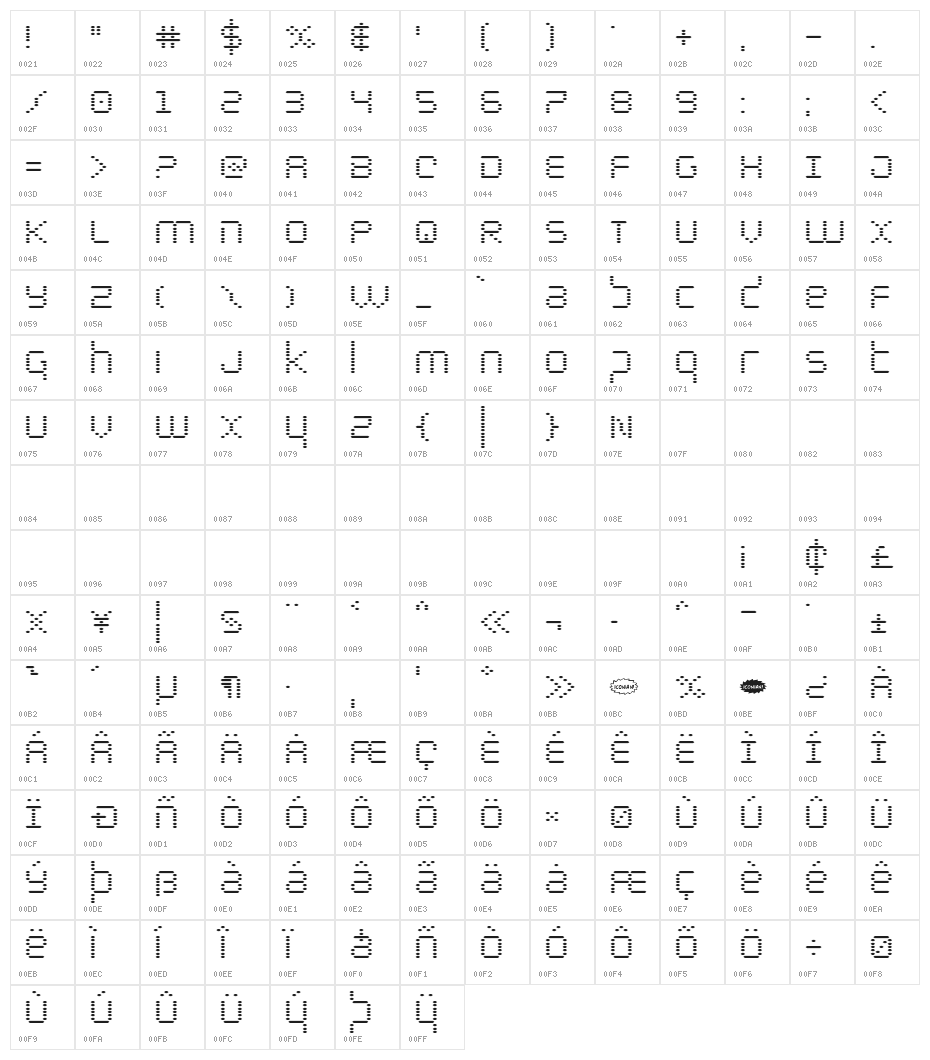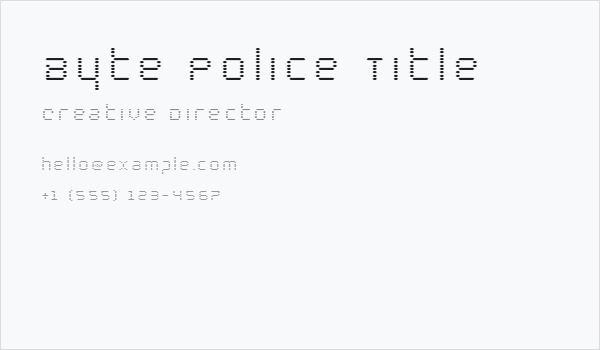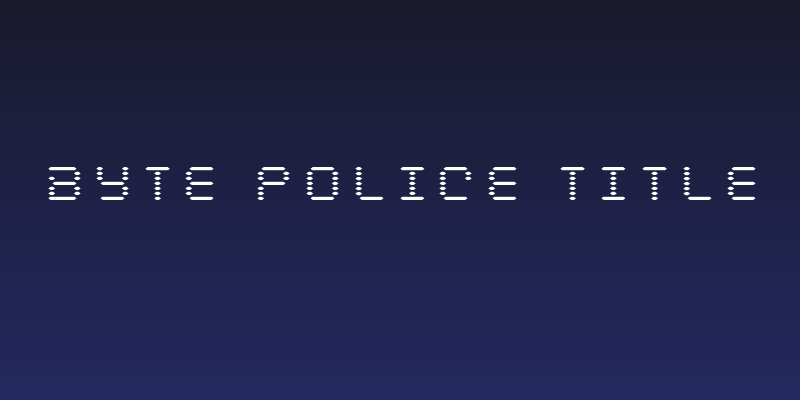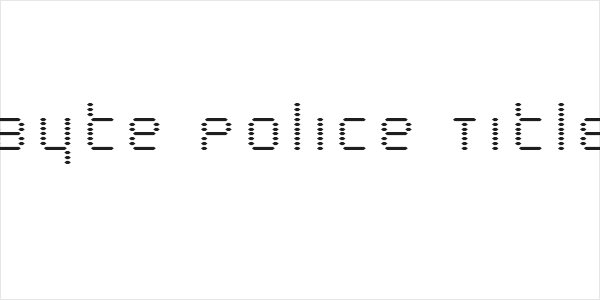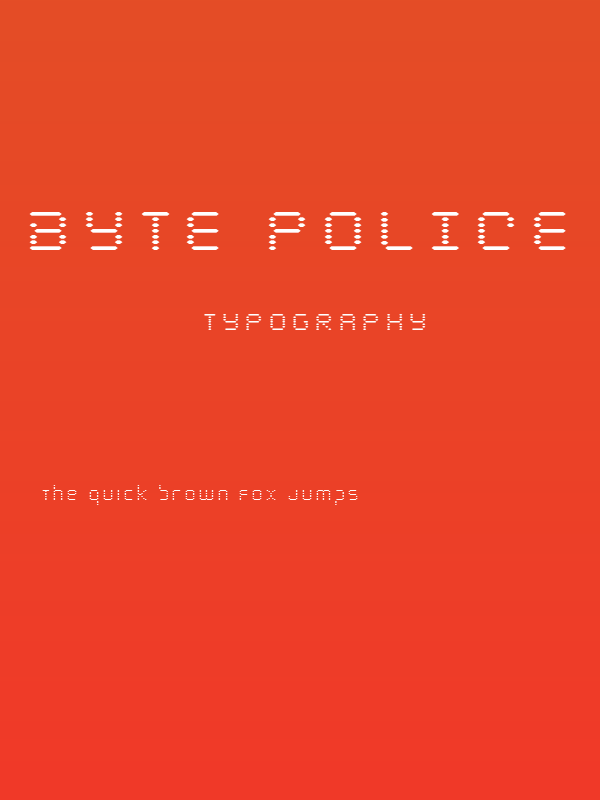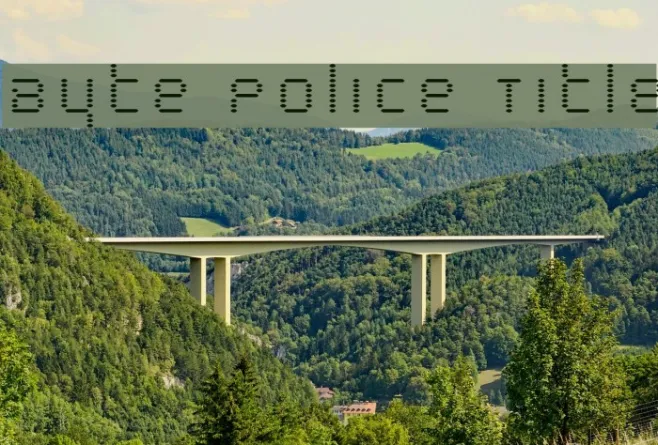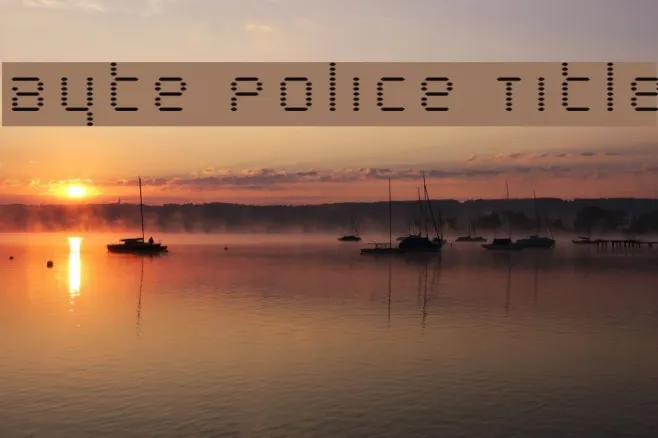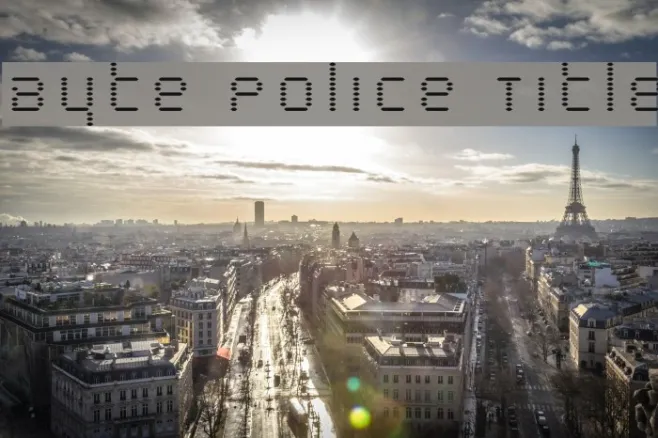
Byte Police Title Font
Byte Police Title Description
This font features a unique design where each character is constructed using a series of small dots, reminiscent of a digital or pixelated style. The characters are evenly spaced and maintain a consistent height, giving it a structured and uniform appearance. The uppercase and lowercase letters, as well as numbers and special characters, all follow this dotted pattern, creating a cohesive look. This font's distinct style makes it stand out, particularly suitable for projects that require a modern, tech-inspired aesthetic.
| Use Case | Logos, Headlines, Digital displays |
| Proposed Projects | Ideal for technology-themed designs, digital art projects, and futuristic branding. |